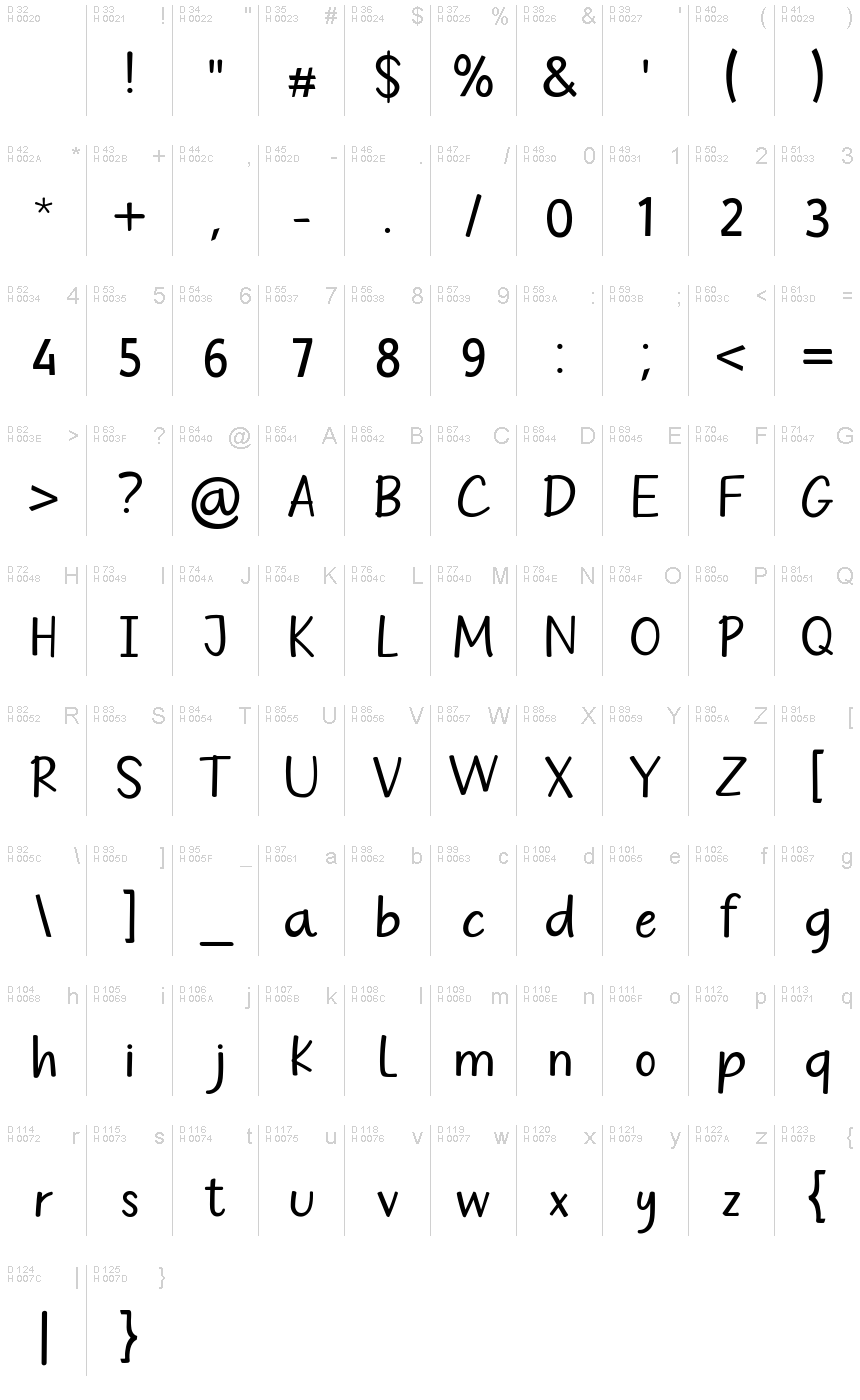
Hello Kiddos
Hello Kiddos, the captivating handwritten font crafted by UI Creative, exudes a delightful and playful essence. This charming typeface boasts organic, flowing strokes that seamlessly blend together, creating a sense of warmth and approachability. The whimsical character shapes and effortless variations lend a sense of authenticity, inviting the viewer to connect on a personal level.
Versatile in its applications, Hello Kiddos excels in a multitude of design contexts, from branding and packaging to event materials and children's publications. Its distinctive personality can elevate logos, headlines, and other display elements, infusing them with a touch of youthful exuberance. Whether crafting an engaging social media post or designing an eye-catching poster, Hello Kiddos is a font that effortlessly captivates and delights.